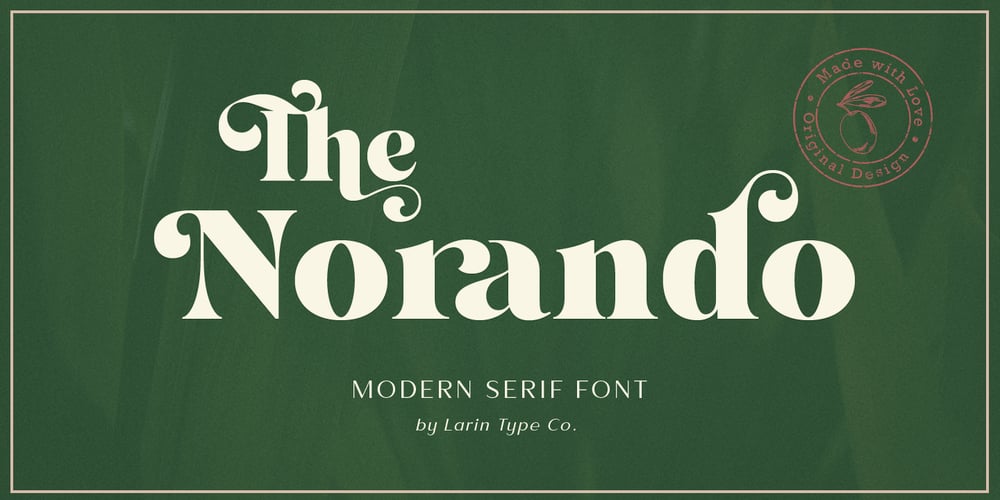
Norando Font Family was designed by Pavel Larin and published by Larin Type Co. Norando contains 1 styles and family package options. Norando this is a modern and elegant serif font. It carries a bold weight and with it in highlight the main thing, make a title or logo and much more. It can also be more expressive and playful, thanks to the many alternatives and ligatures that are harmoniously combined in this font and make it more attractive and versatile. Try to change the alternatives, ligatures and you will get a lot of options for your project that will make it unique. This font is easy to use and has OpenType features.